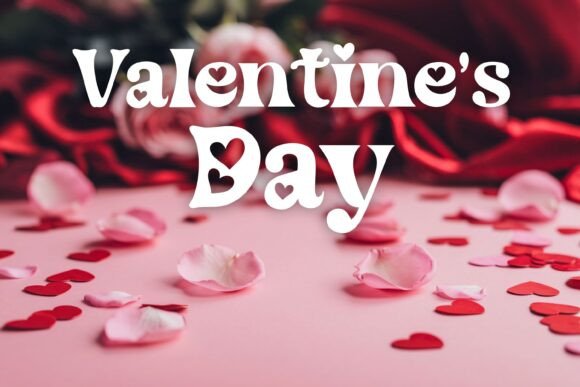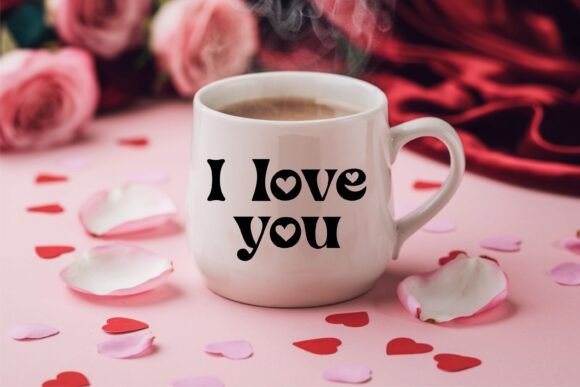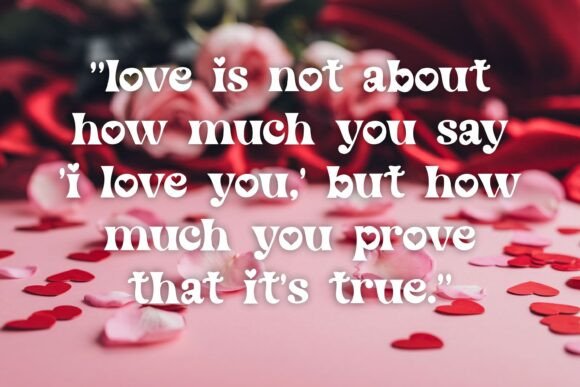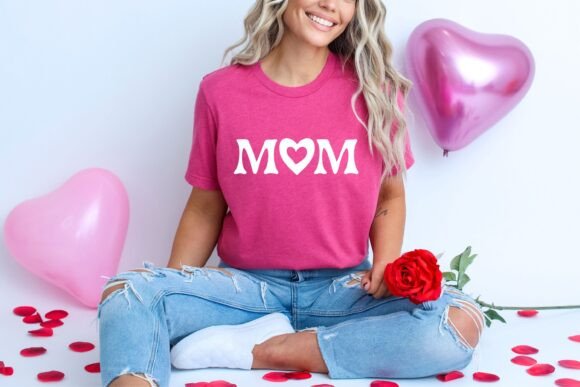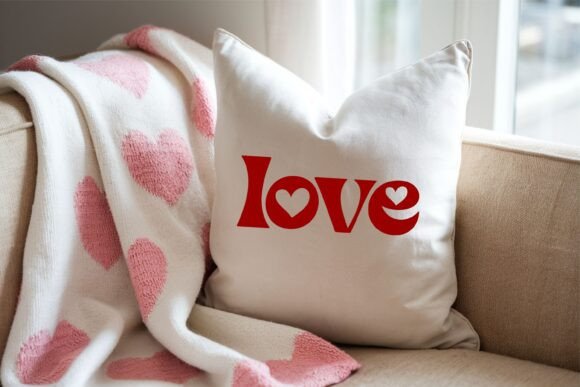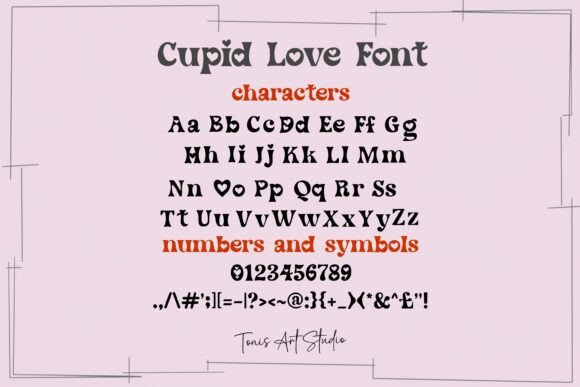
Introduction to Cupid Love Font Font
Fonts play a crucial role in design, and the Cupid Love Font font is a typeface that brings both character and versatility to any project. Whether you’re working on a branding project, a website, or a print design, the Cupid Love Font font offers a unique style that can elevate your work.
Cupid Love is a charming and playful font with heart-inspired details, perfect for romantic designs, Valentineβs Day projects, wedding invitations, and more.
Key Features of Cupid Love Font Font
Why Choose Cupid Love Font Font?
The Cupid Love Font font is more than just a typeface β it’s a design tool that helps you communicate your message with style and clarity. Its unique character set and versatile design make it suitable for a wide range of applications, from elegant invitations to bold headlines.
With its carefully crafted letterforms and balanced proportions, the Cupid Love Font font ensures readability and visual appeal across all mediums.
What makes Cupid Love Font font special?
The Cupid Love Font font stands out with its unique design, exceptional readability, and versatility across various design applications.